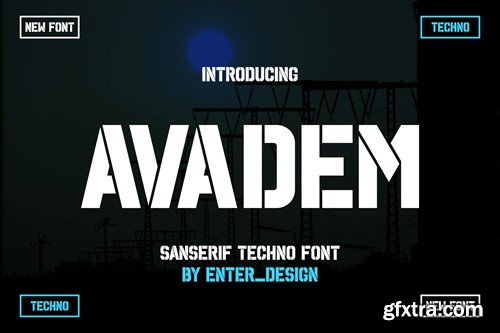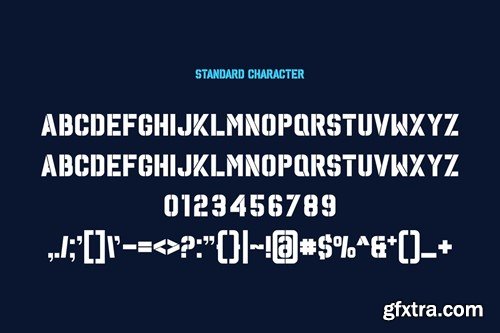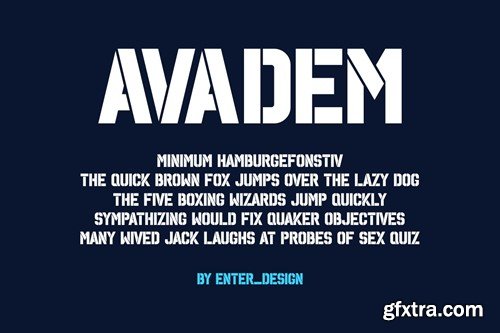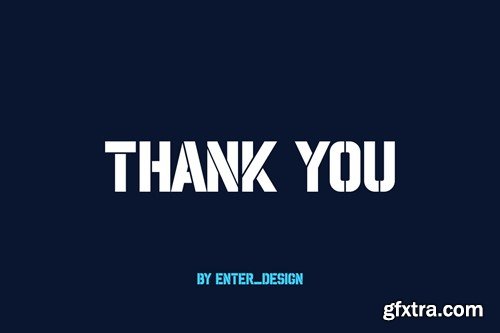
Avadem Font
Introducing our new product Avadem Font - Modern Font is a bold and authentic display font. The font is suitable for any branding project like logo, esport, and many more. outstanding in a wide range of contexts. availlable